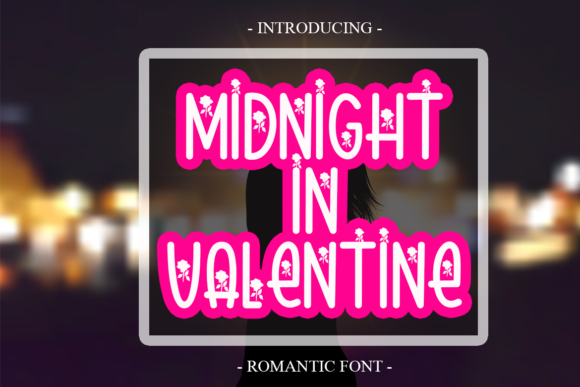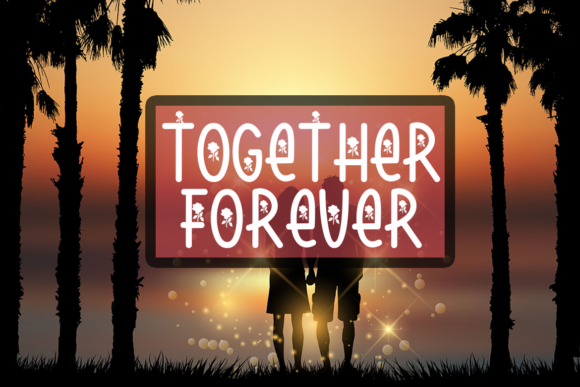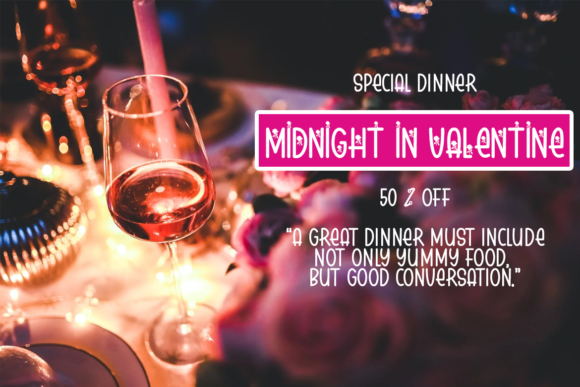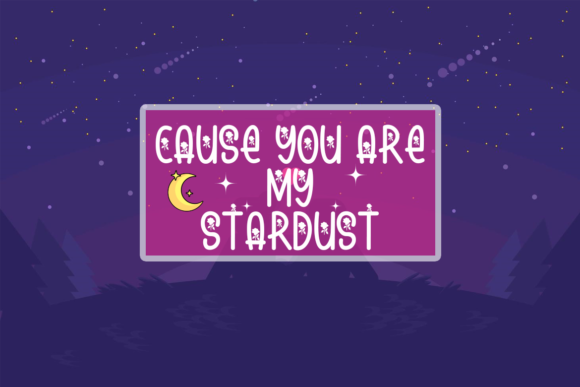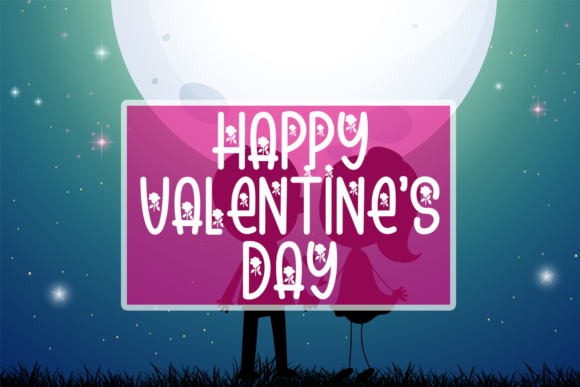
Midnight in Valentine Font
About Midnight in Valentine Font
Midnight in Valentine is a cute and romantic handwritten. Add it with confidence to your favorite project, and see how it instantly brings it to life! This font is PUA encoded which means you can access all glyphs and swashes with ease!